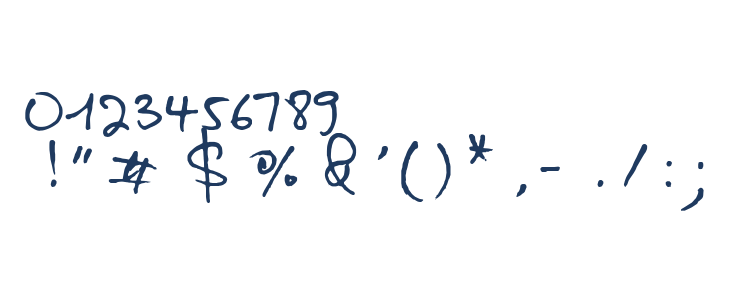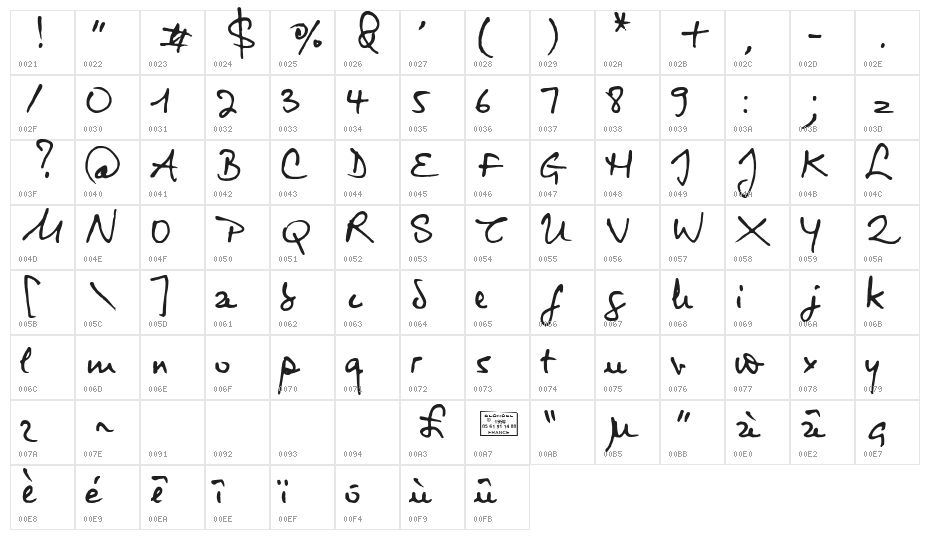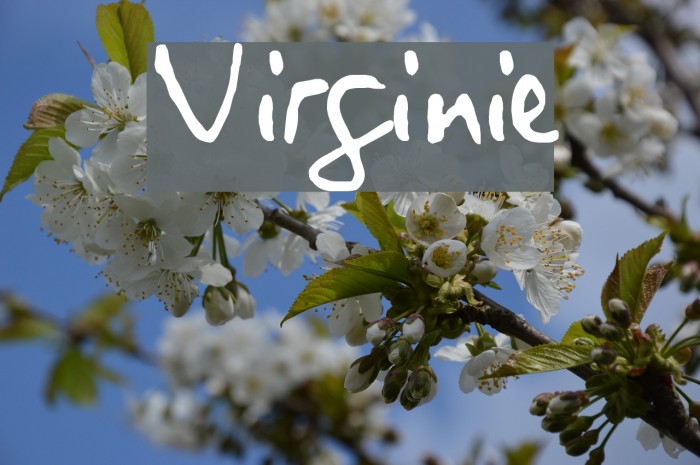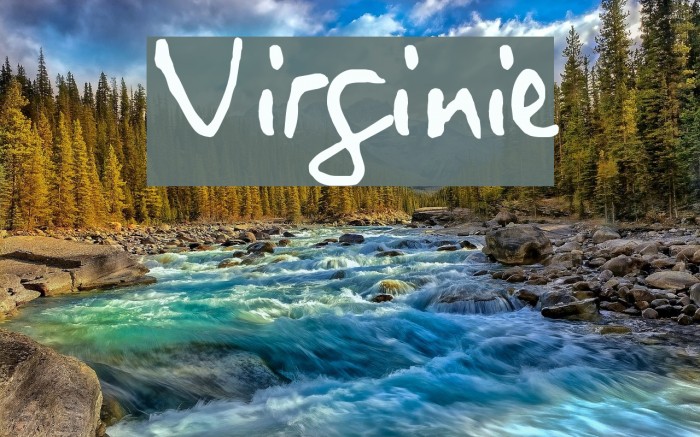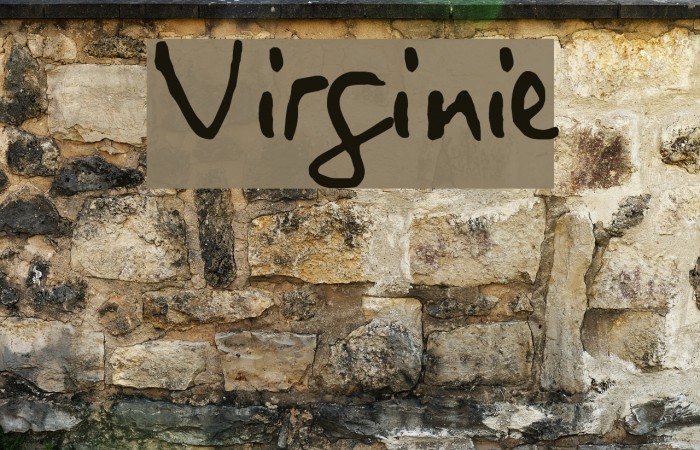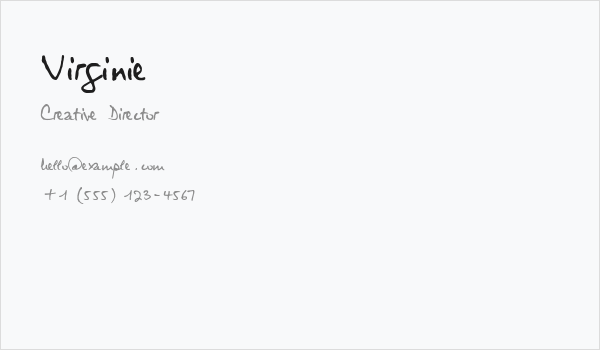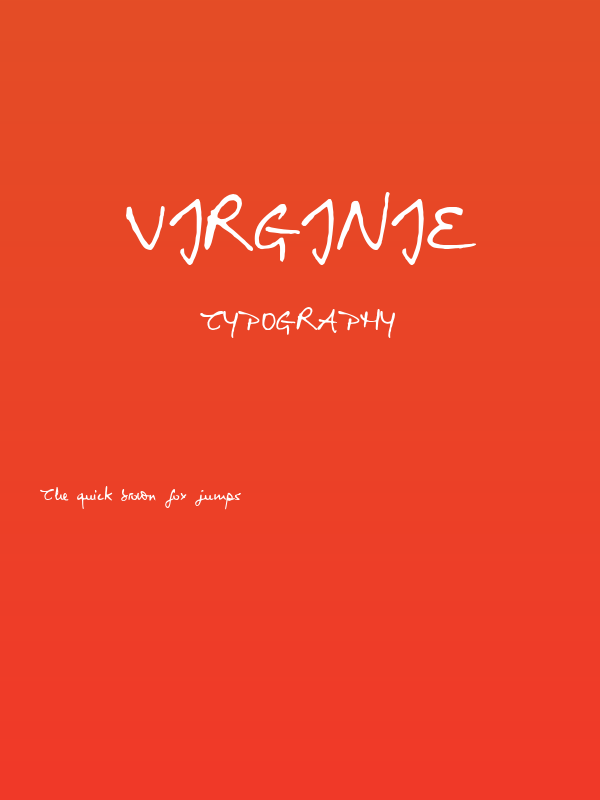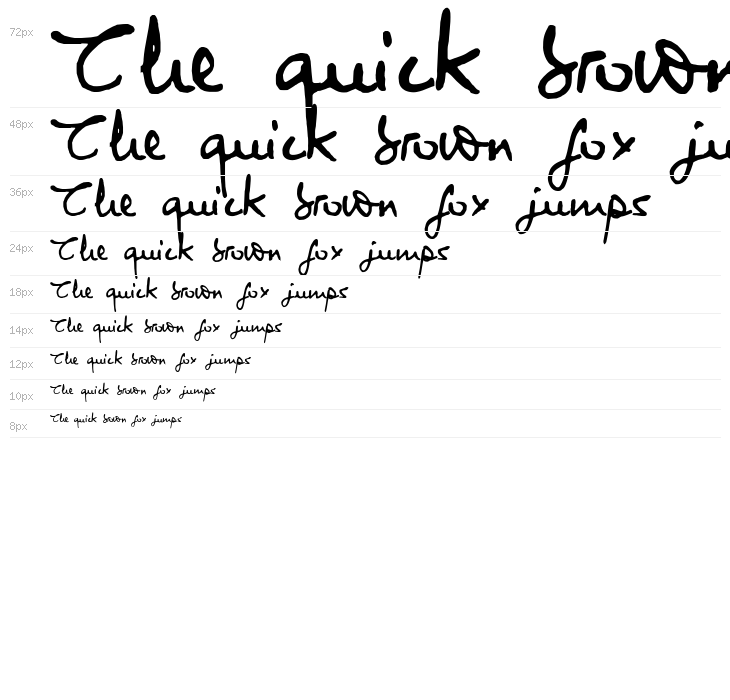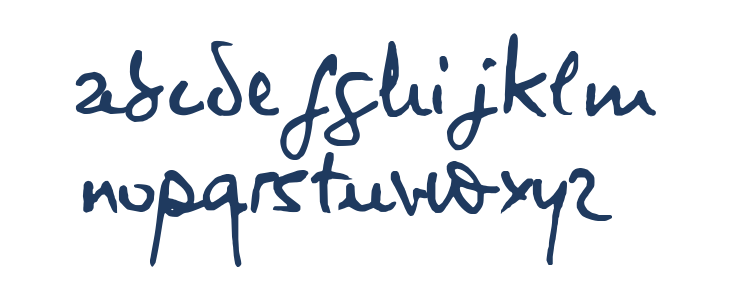
Virginie Font
| Stile generale | Casual, Artistic |
| Caso d'uso | Logos, Headlines, Creative projects |
| Progetti proposti | Ideal for greeting cards, personal branding, creative posters, and informal invitations. |